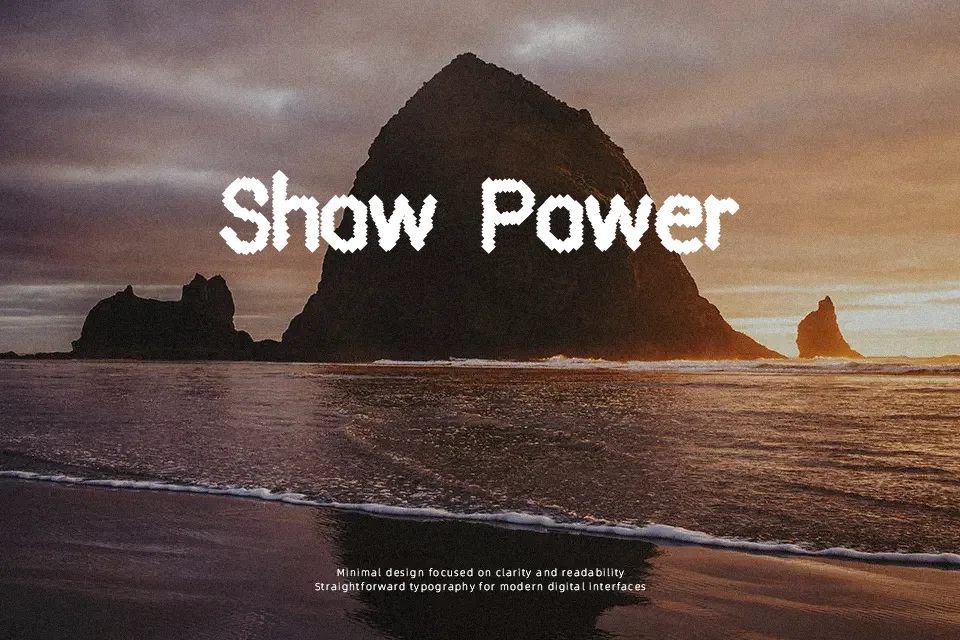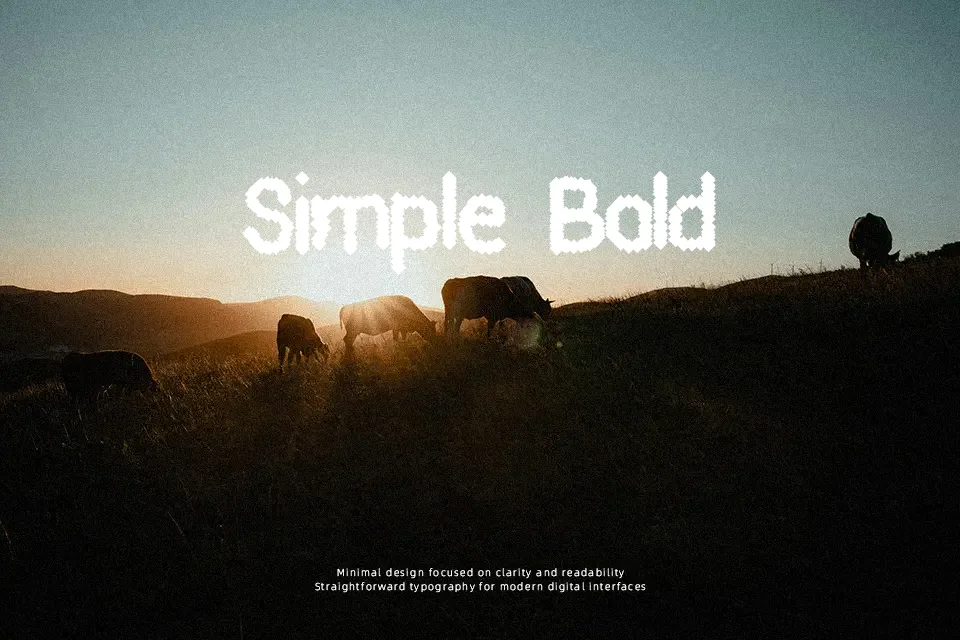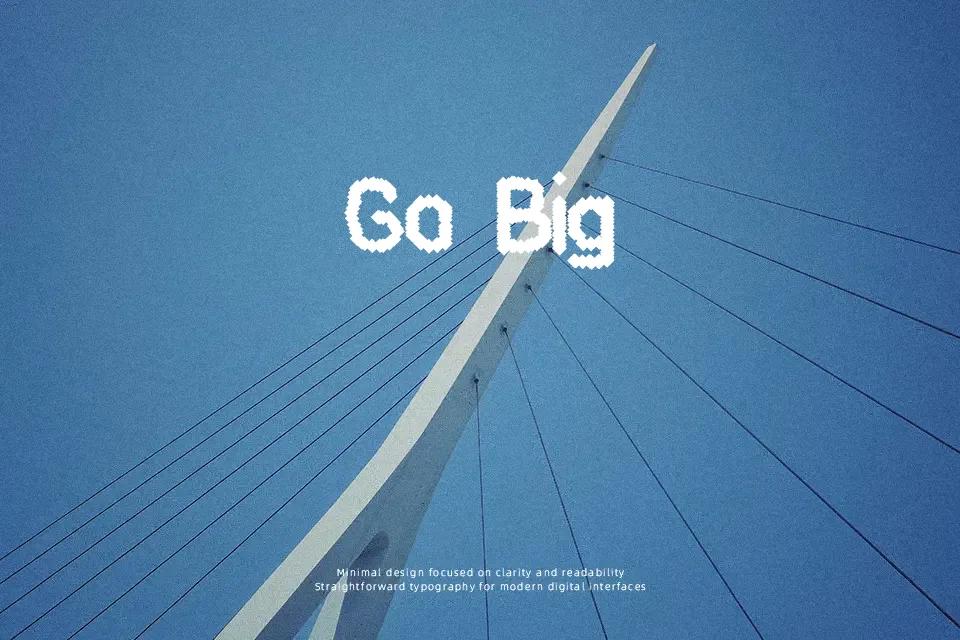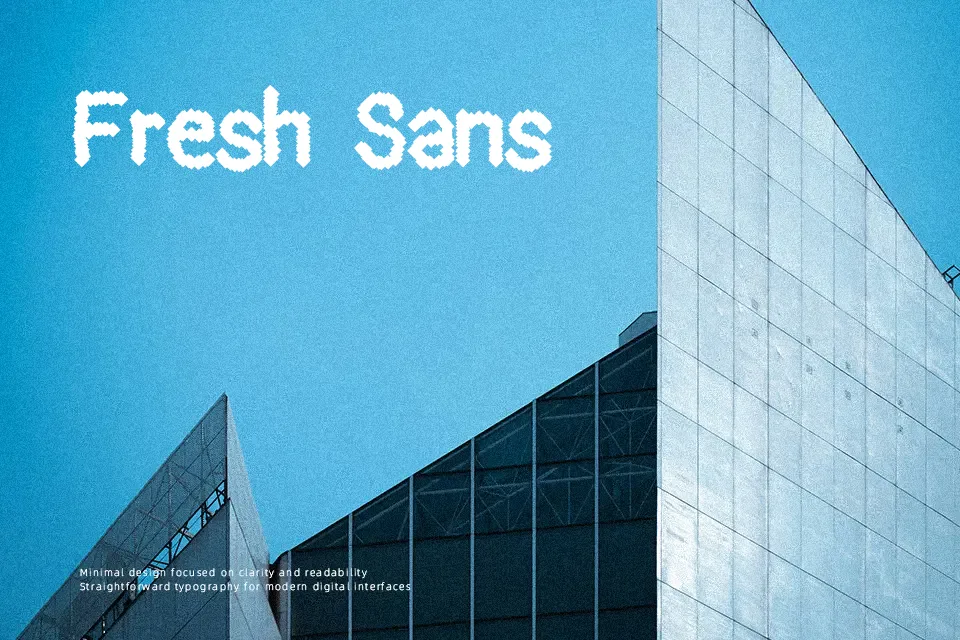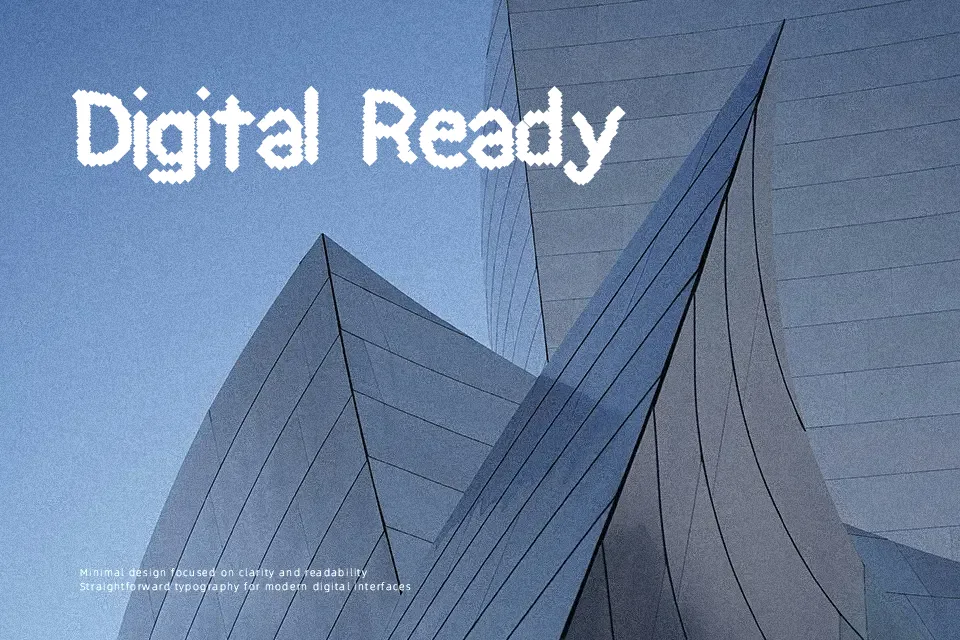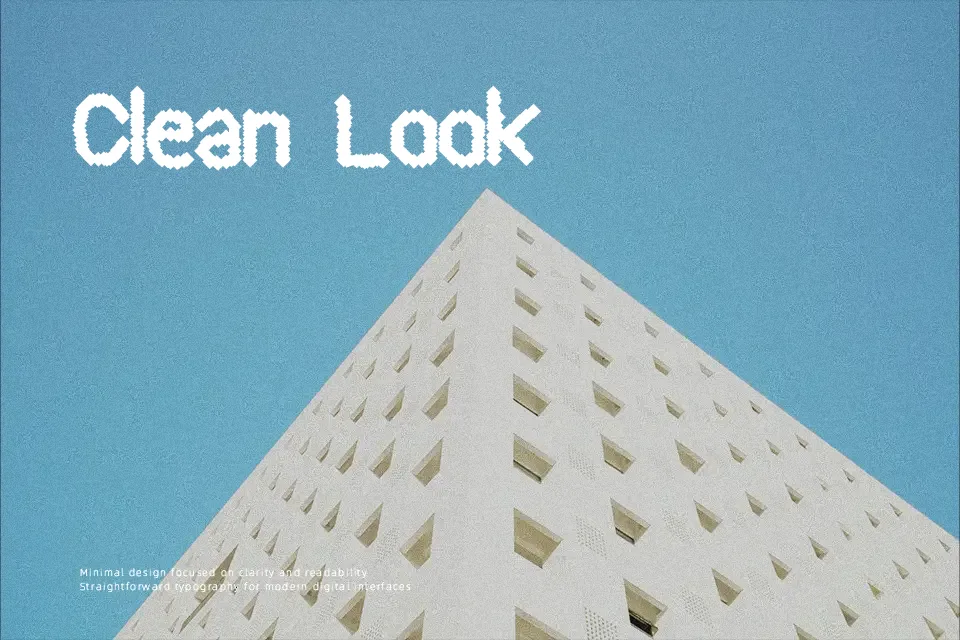
Black Pixel Font
Designed by Geronimo Font Studios
Black Pixel by Geronimo Font Studios is a bold, distorted display font that channels early digital aesthetics with a raw, chaotic edge. Unlike uniform bitmap typefaces, its stroke weight feels intentionally glitchy and fractured, creating a compelling sense of corrupted data. This makes the typeface incredibly effective for retro-gaming titles, tech-noir posters, and underground music branding where a distressed, high-impact look is needed. However, its heavy and fragmented structure severely compromises legibility at smaller scales. It struggles with dense editorial layouts or any scenario requiring clean readability. While it fails in formal UI environments, it excels as a commanding headline asset for projects embracing a nostalgic, disruptive visual identity.
Retro-style video game title screens
Edgy electronic music album artwork
Disruptive streetwear apparel graphics
Tech-themed event posters and flyers
Long paragraphs or small interface text
Formal corporate branding and documents
Clean minimalist mobile app UI design
Perfect for gaming, headline, and logo, with a creative and decorative style.